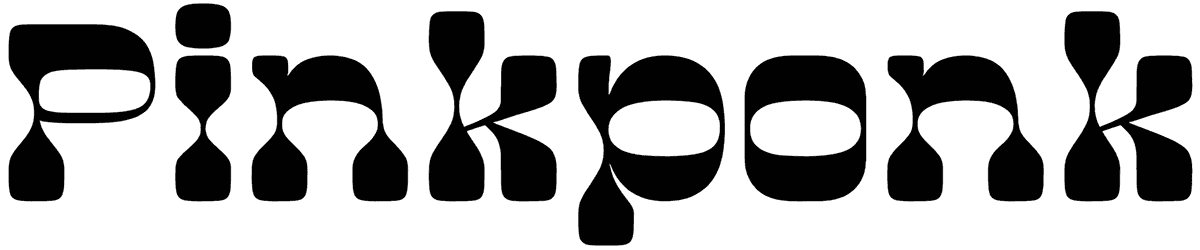
Pinkponk Font
See what’s happening here? Instead of ping pong, you’re about to receive Pinkponk. Less Gs and more Ks. Creative, right? But that doesn’t make it eligible for any sports designs, sorry. What it’ll be good at instead is your retro projects, somewhere you wish to make a splash with a nostalgic approach.
Can’t imagine any reason you shouldn’t pick this retro font for decorating your spring posters, girly apparel labels, or even branding your hair accessories. It just works wonders.